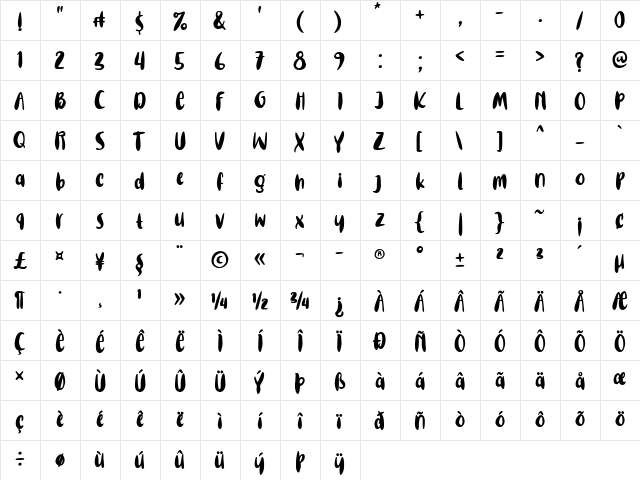
Steaming Grill Regular
| Foundry | 7NTypes |
| Designer | Keithzo; Situjuh Nazara |
Design Context for Steaming Grill Typeface
Steaming Grill is a composed and adaptable typeface that performs quietly and consistently across a wide range of design contexts.
Pro Tip: Pair Steaming Grill with a font of contrasting weight or personality to build a more expressive typographic hierarchy.